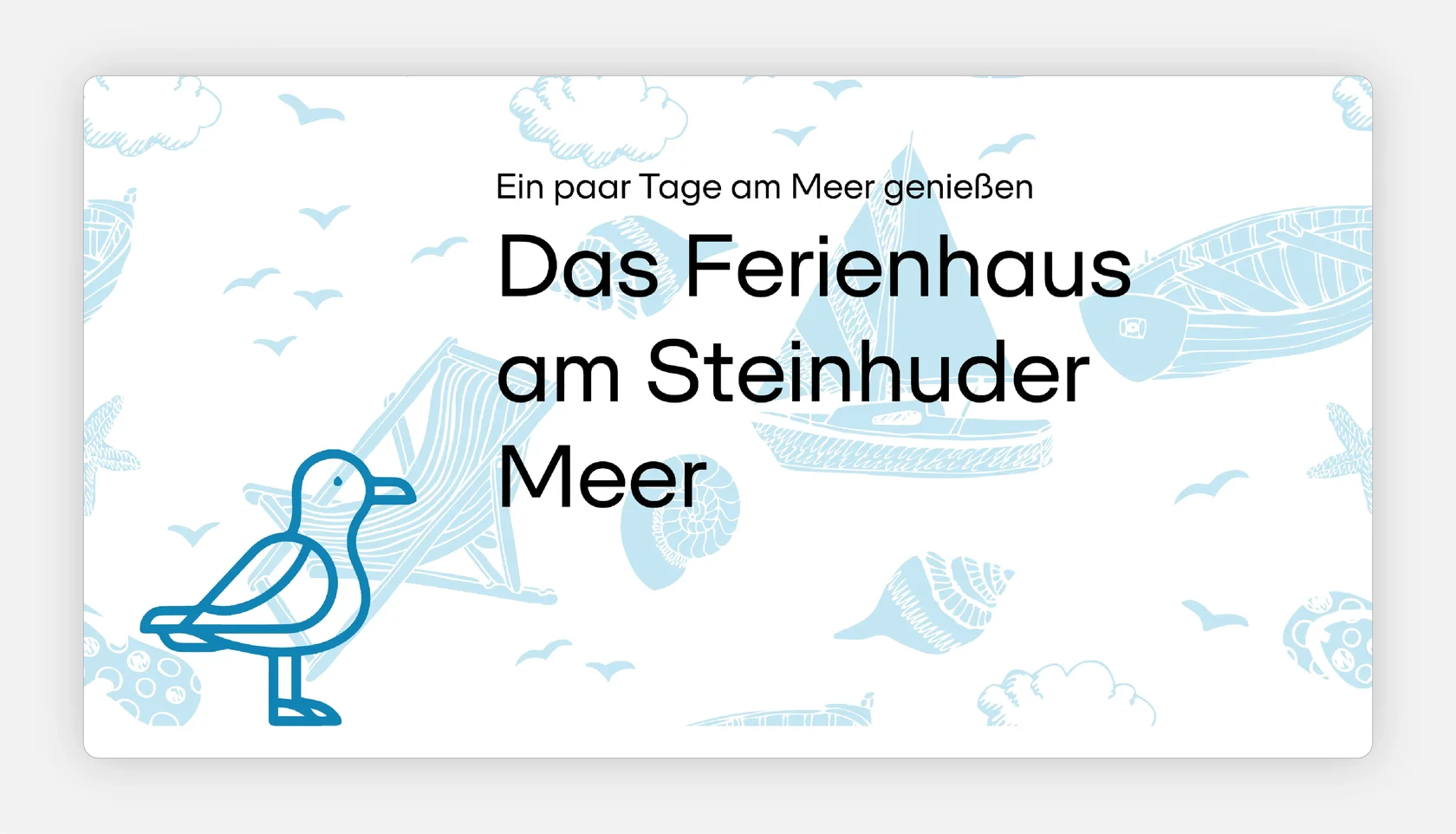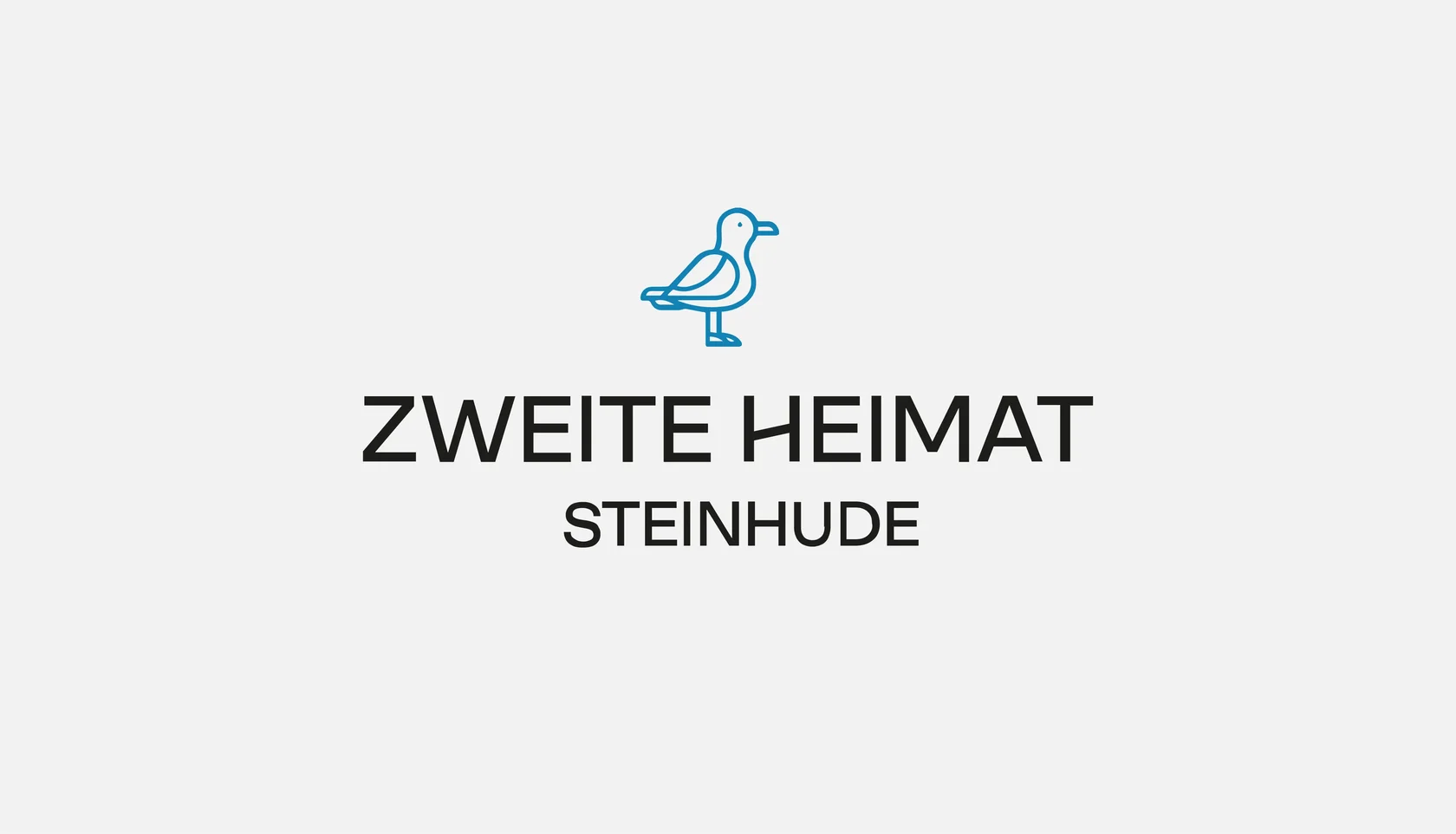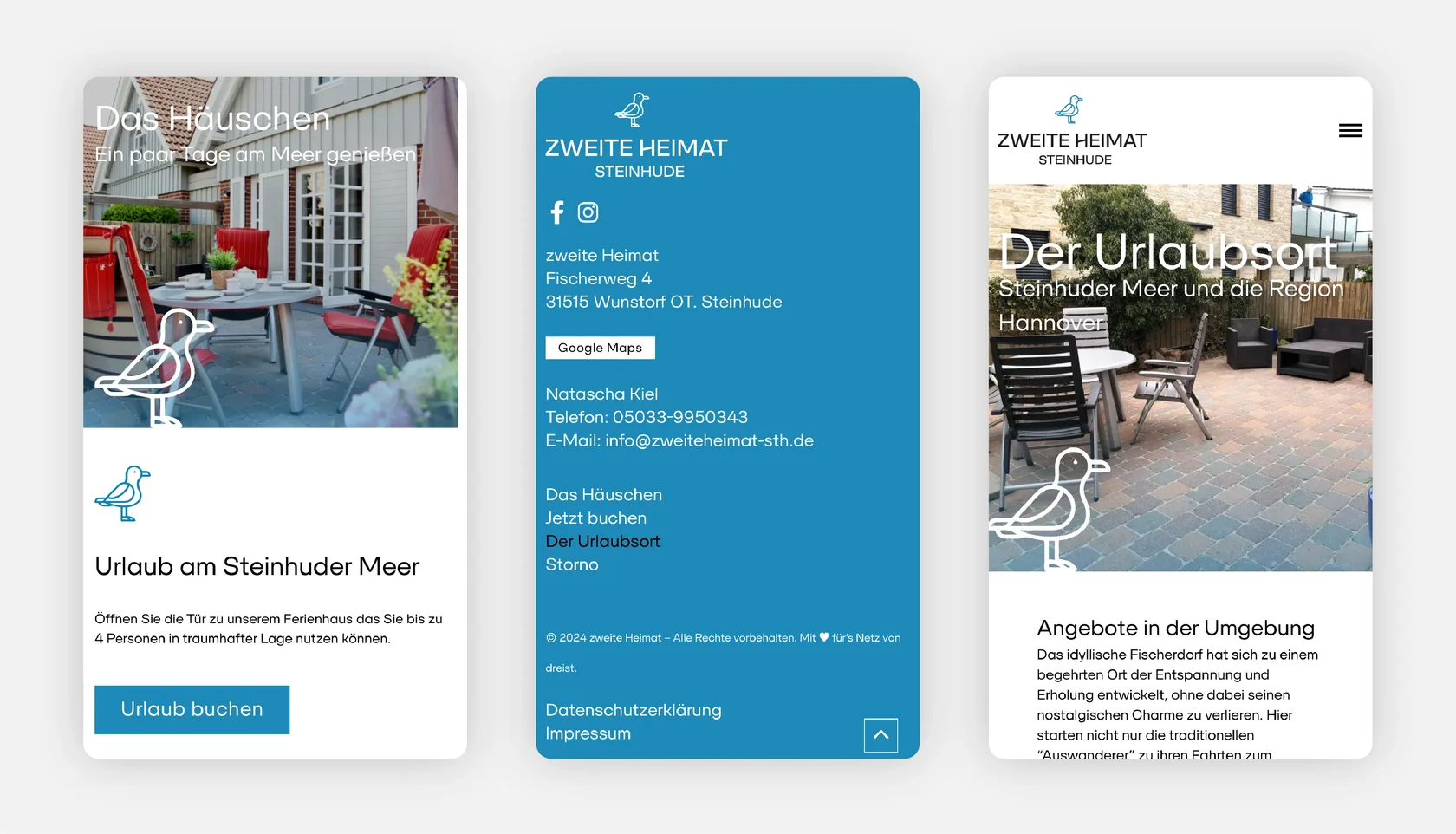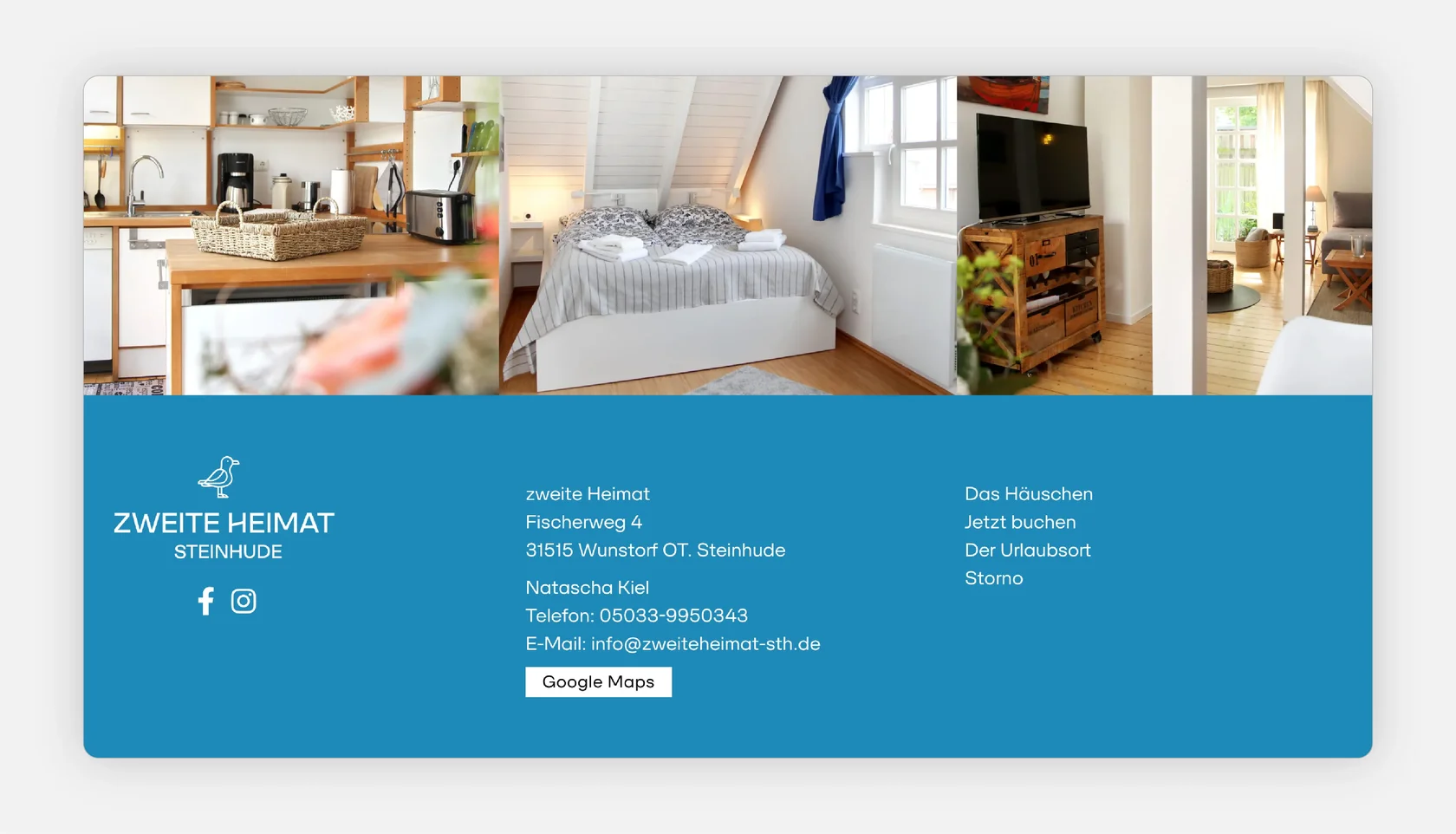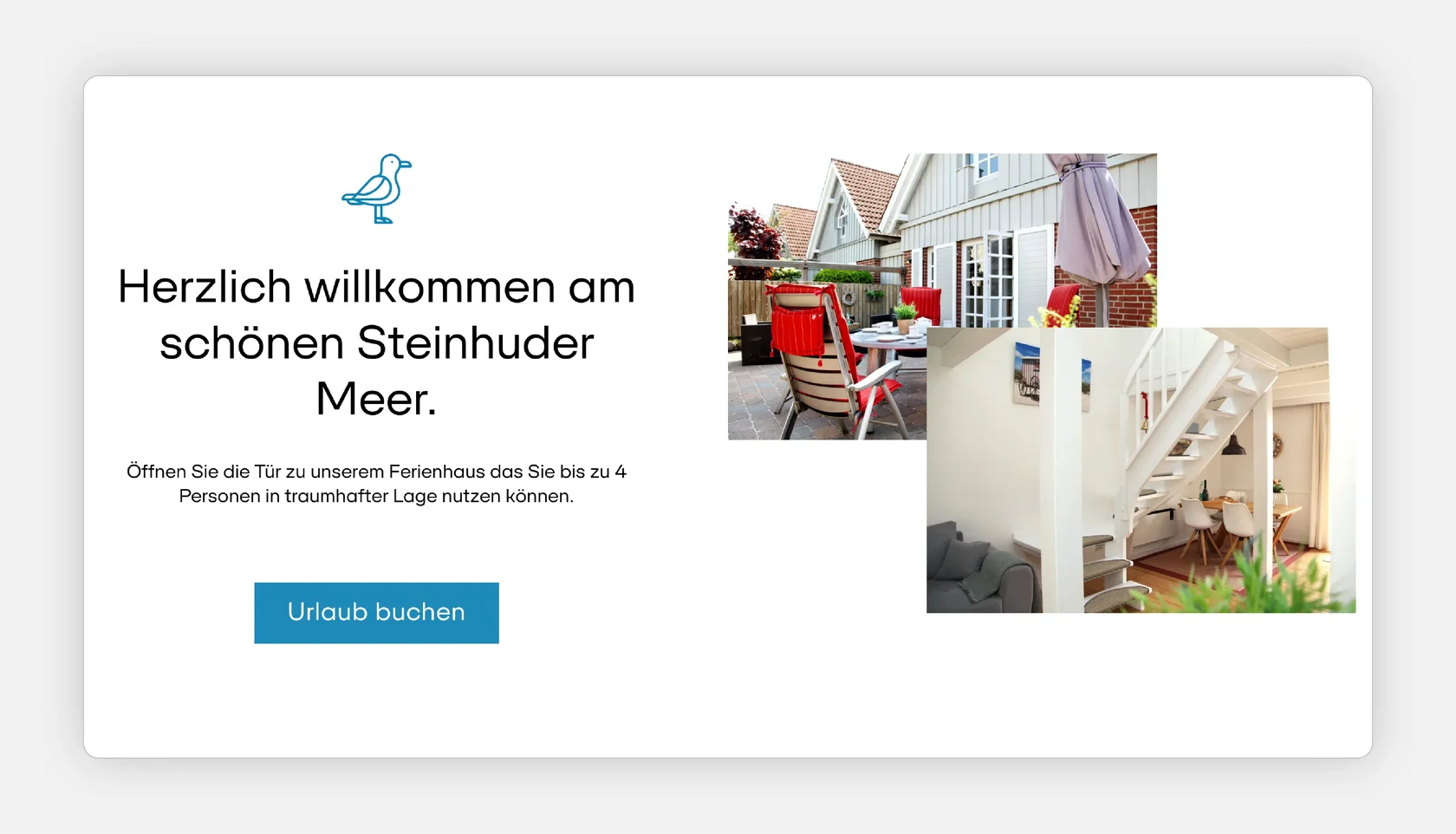
Zweite Heimat — Holiday Home at Steinhuder Meer
Font: SFT Schrifted Sans (Regular).
Use case: Website design, logo.
About the Project:
Zweite Heimat offers a vacation rental home near Steinhuder Meer, Germany, designed with comfort and craftsmanship in mind. The website conveys the welcoming atmosphere and details of the accommodation with straightforward copy, inviting visitors to book and relax.
Why SFT Schrifted Sans?
SFT Schrifted Sans was chosen to support clear digital communication and welcoming tone. Its modern geometric shapes deliver readability and cohesion across the site, reinforcing the home’s comfort-focused identity and reinforcing a reliable, stylish presence online.